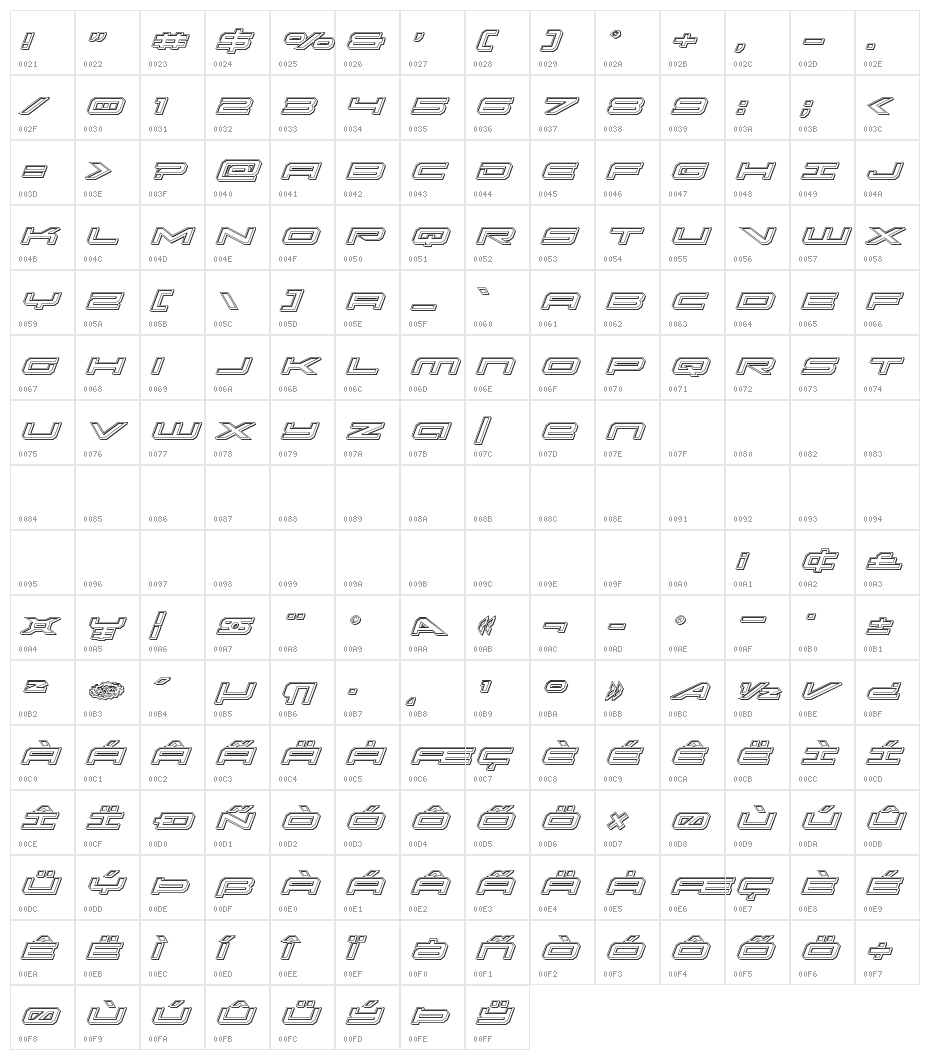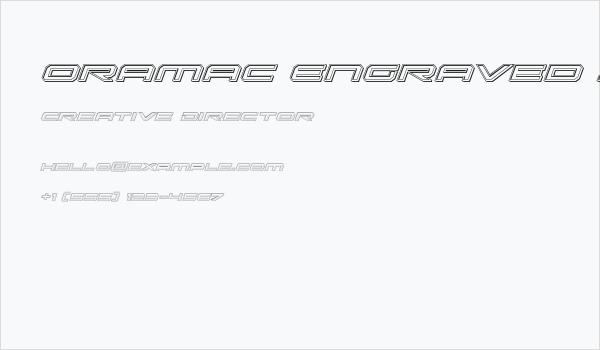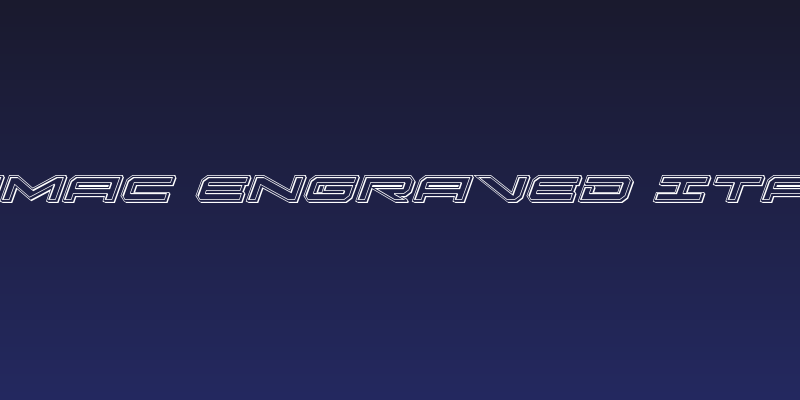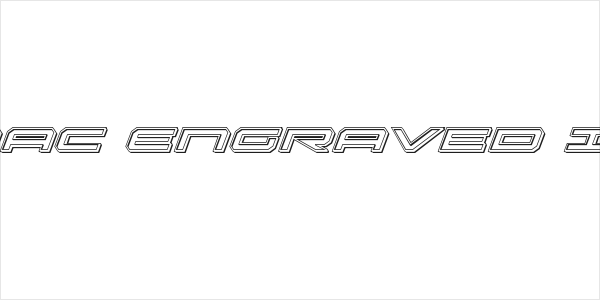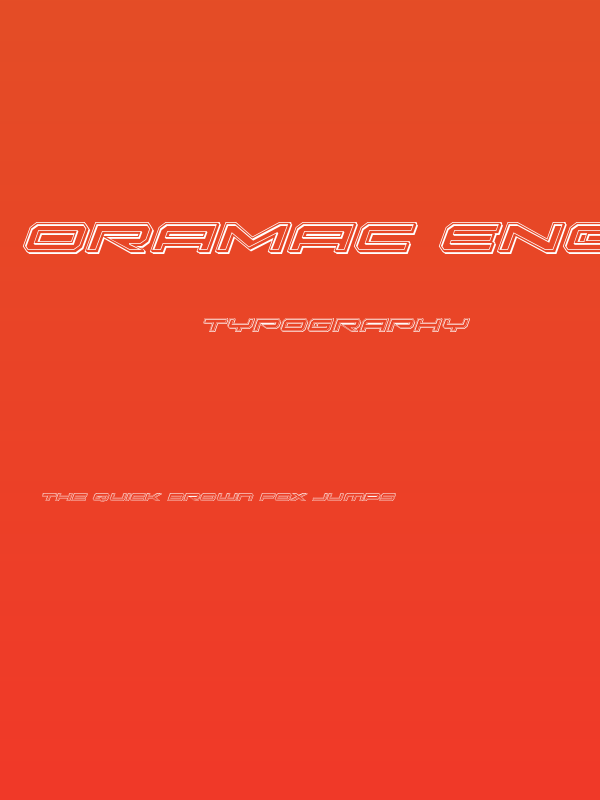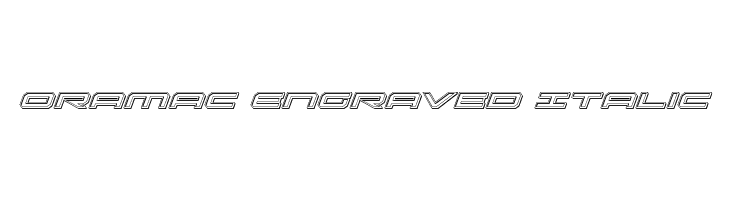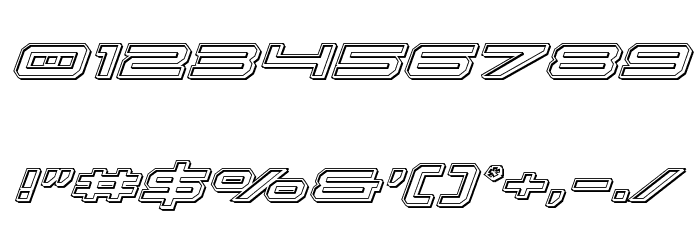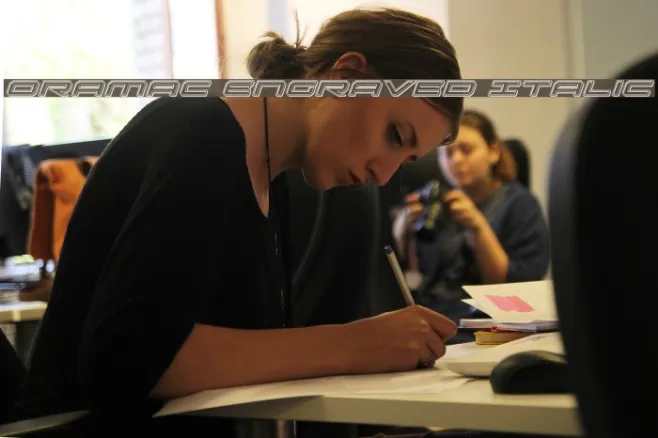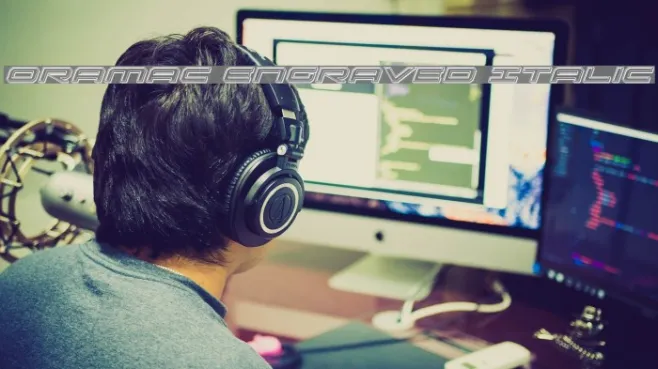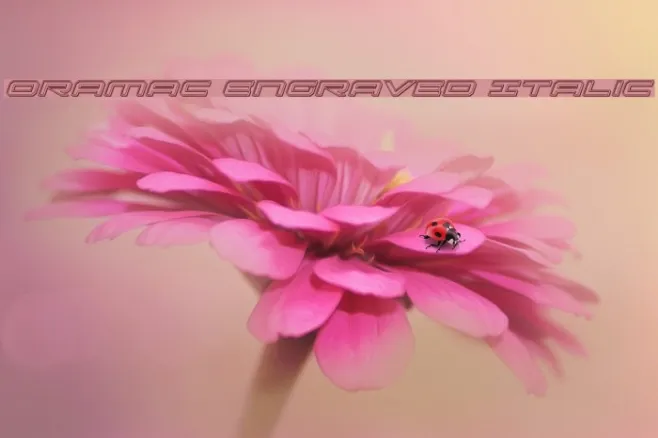
Oramac Engraved Italic Font
Oramac Engraved Italic Description
This font features a unique engraved style with a futuristic and geometric appearance. The characters are outlined with a double line, creating a sense of depth and dimension. The italic slant adds a dynamic and forward-moving feel, making it suitable for modern and tech-oriented designs. The uppercase and lowercase letters maintain a consistent style, with sharp angles and clean lines. Numbers and special characters are designed to match the overall aesthetic, ensuring a cohesive look across all text elements.
| Use Case | Logos, Headlines, Posters |
| Proposed Projects | Ideal for tech branding, sci-fi posters, video game titles, and modern logos. |